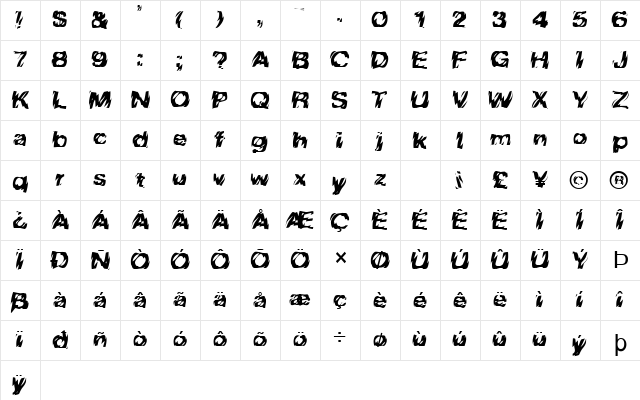
FZ WARPED 10 Normal
Design Context for FZ WARPED 10 Typeface
FZ WARPED 10 is a composed and adaptable typeface that performs quietly and consistently across a wide range of design contexts.